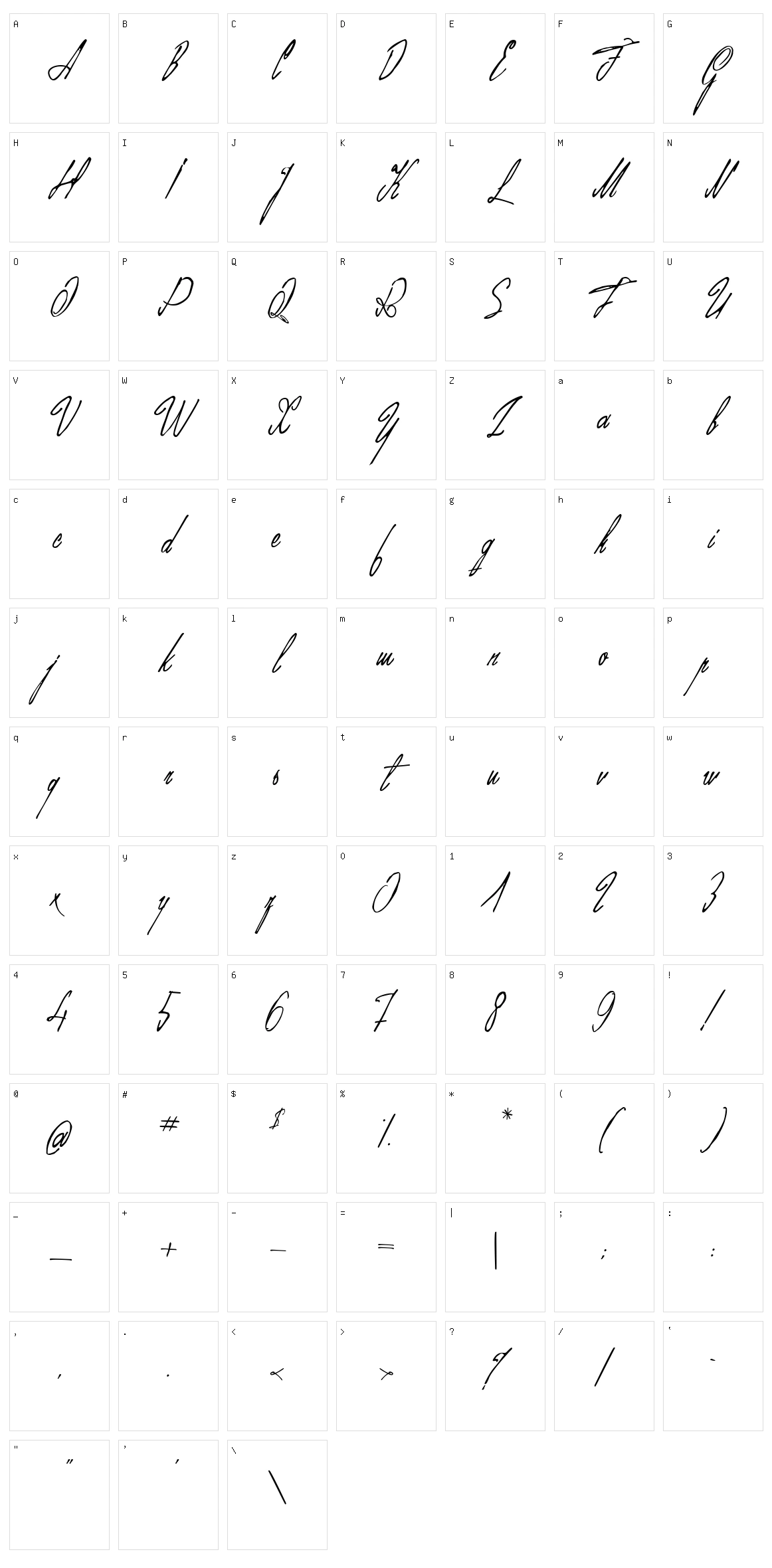
The free font Mr Fisherman and the Shoemaker is carefully designed by Maelle.K | Thomas Boucherie, showcasing a thoughtful balance of creativity and usability and falls under the Script font style. When you download the ZIP file, it contains only 40.9 KB of font files, making it lightweight and quick to download. Please review the license details below to understand permitted usage and distribution rights. If license information is not available, we recommend using this font for personal projects only or contacting the author directly for commercial usage permissions.